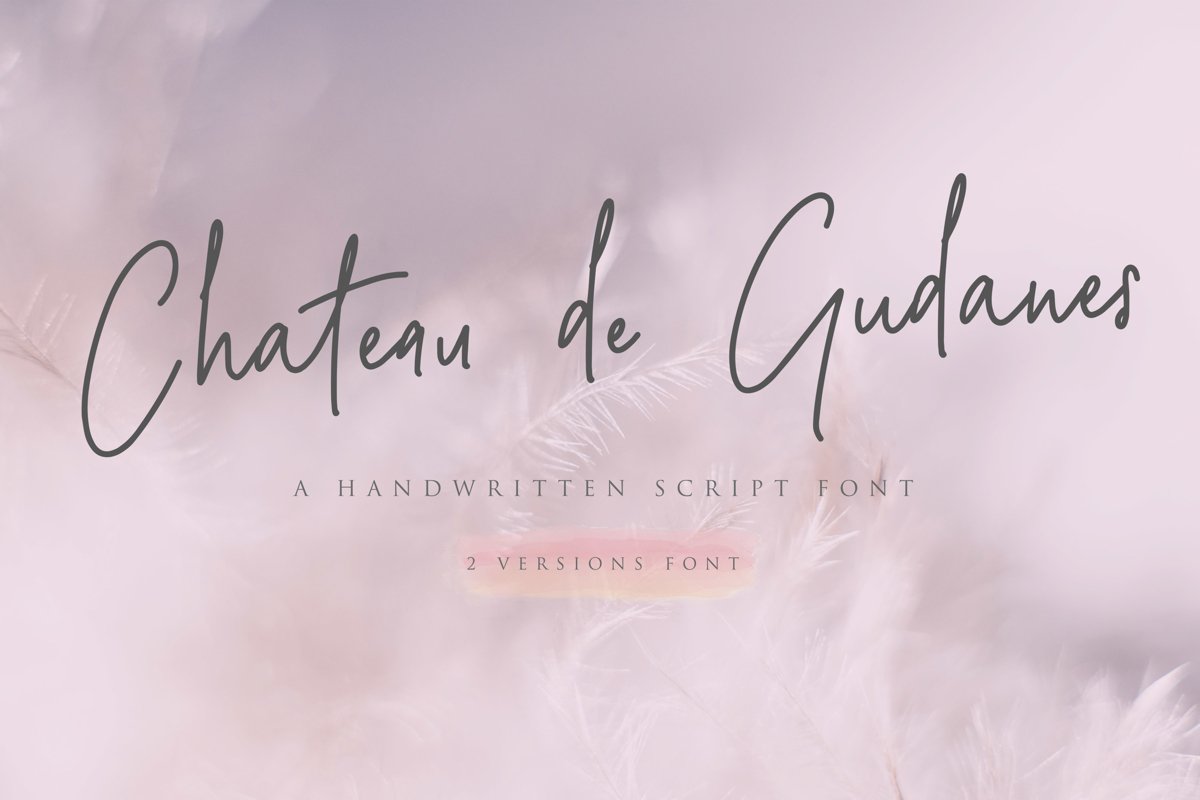
Chateau de Gudanes is handwritten script font. With modern script style this font will perfect for many different project ex: photography, watermark, quotes, blog header, poster, wedding, branding, logo, fashion, apparel, letter, invitation, stationery, etc.FEATURES: